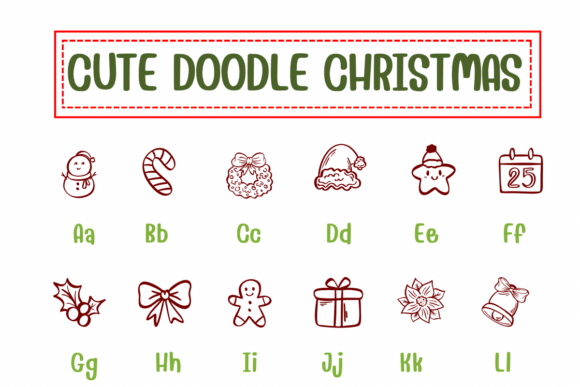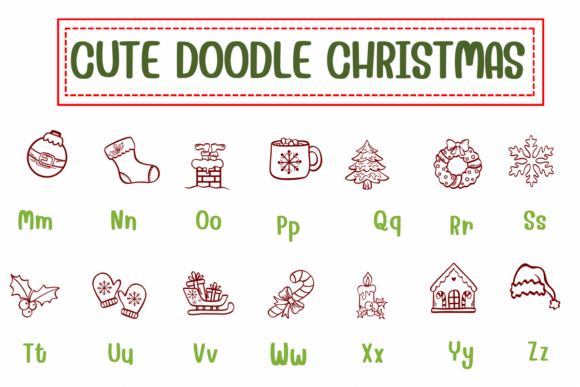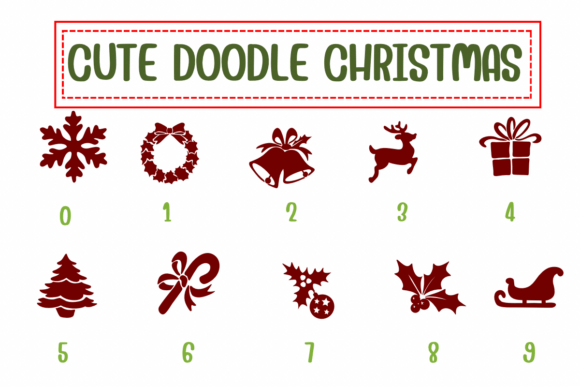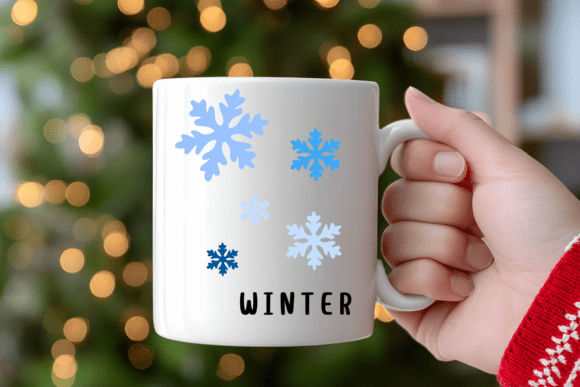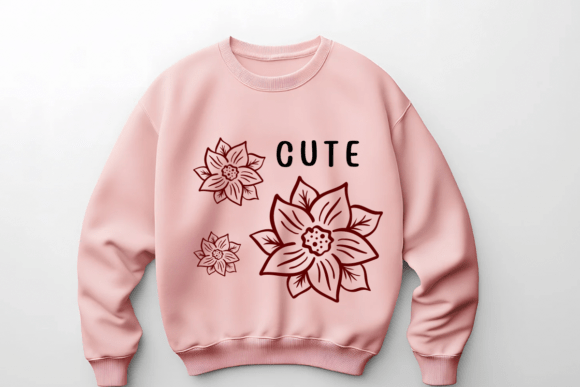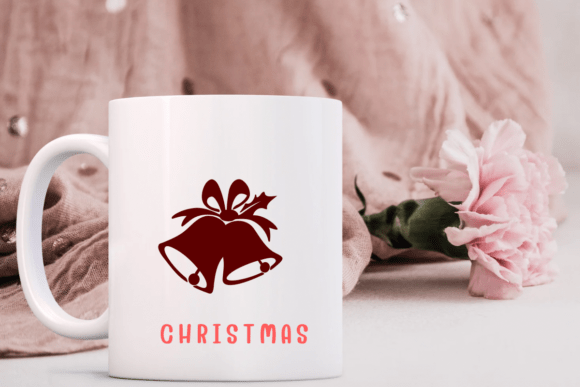
Cute Doodle Christmas Font: Add a Touch of Holiday Cheer to Your Designs
Are you looking for a fun and festive way to add some holiday cheer to your designs? Look no further than the Cute Doodle Christmas font! This delightful dingbat font is packed with hand-drawn holiday elements that will make your Christmas projects stand out. From candy canes and wreaths to stockings, mittens, trees, snowflakes, gifts, and more, this font has everything you need to create fun and seasonal designs.
What is Cute Doodle Christmas Font?
Cute Doodle Christmas is a unique and charming font that features a wide range of hand-drawn holiday elements. Unlike traditional fonts, this dingbat font allows you to add graphics to your designs with just a few keystrokes. With Cute Doodle Christmas, you can create fun and festive designs for cards, crafts, wrapping paper, stickers, social media posts, and more.
Key Features of Cute Doodle Christmas Font
- Hand-drawn holiday elements: The font features a wide range of hand-drawn holiday elements, including candy canes, wreaths, stockings, mittens, trees, snowflakes, gifts, and more.
- Easy to use: Simply type and instantly add charming doodle-style graphics to your Christmas projects.
- No need for clipart: With Cute Doodle Christmas, you don’t need to search for clipart or spend hours designing your own graphics.
- Perfect for seasonal designs: This font is perfect for creating fun and seasonal designs for cards, crafts, wrapping paper, stickers, social media posts, and more.
Cute Doodle Christmas font is a must-have for designers and crafters who want to add a touch of holiday cheer to their projects. Here are just a few benefits of using this font:
- Save time: With Cute Doodle Christmas, you can quickly and easily add graphics to your designs without spending hours searching for clipart or designing your own graphics.
- Increase creativity: The font’s wide range of hand-drawn holiday elements will inspire you to create unique and festive designs that will stand out from the crowd.
Ideas for Using Cute Doodle Christmas Font
Here are just a few ideas for using Cute Doodle Christmas font:
- Christmas cards: Create fun and festive Christmas cards for friends and family.
- Wrapping paper: Design custom wrapping paper with the font’s hand-drawn holiday elements.
- Social media posts: Add a touch of holiday cheer to your social media posts with the font’s charming doodle-style graphics.
- Crafts: Use the font to create fun and festive crafts, such as holiday gift tags or decorations.
Cute Doodle Christmas font is a must-have for designers and crafters who want to add a touch of holiday cheer to their projects. With its wide range of hand-drawn holiday elements, ease of use, and perfect for commercial use, this font is sure to become a favorite in your design library. So why wait? Download Cute Doodle Christmas font today and start creating fun and festive designs for the holiday season!